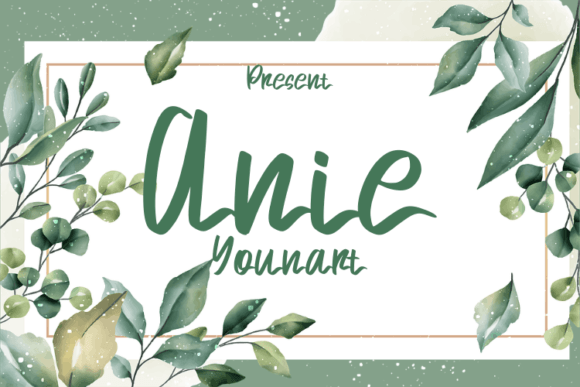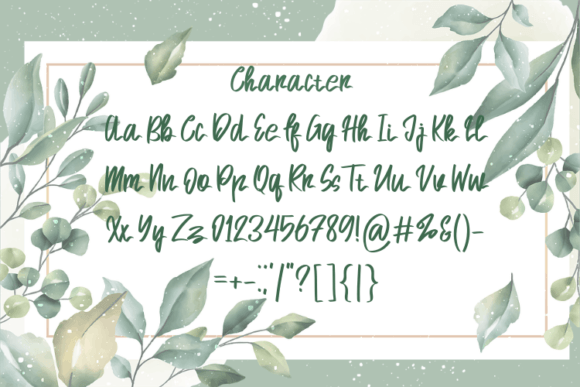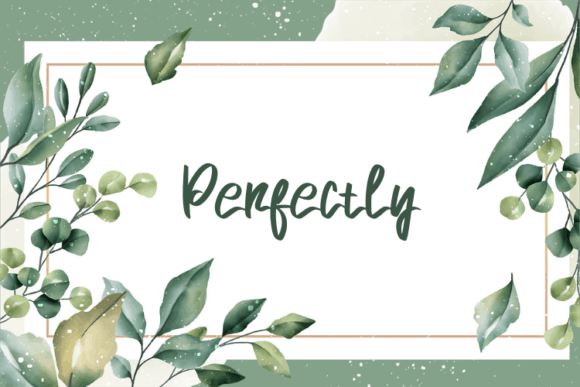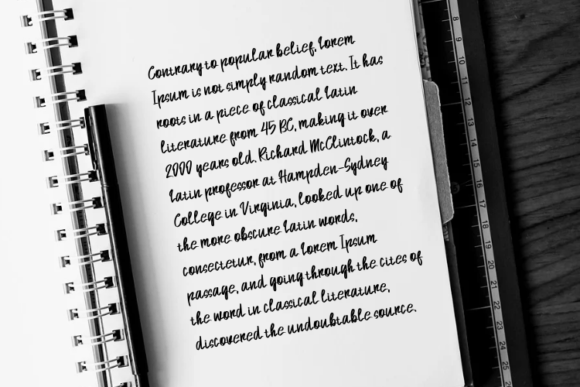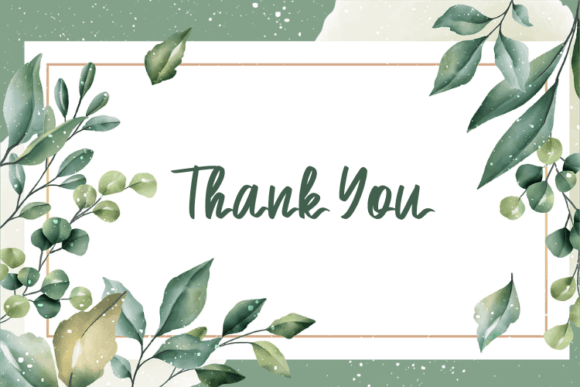
Anie Younart Font
About Anie Younart Font
The Anie Younart font is a modern and stylish script typeface designed to bring simplicity and elegance to your typography. With its refined strokes and contemporary flair, this font blends minimalism with luxury—making it ideal for creative professionals, high-end branding, and editorial projects.
Whether you’re crafting a fashion label, a film title, or a sophisticated quote layout, Anie Younart adds just the right amount of character and polish.
Sleek, Simple, and Stylish
Anie Younart’s structure is defined by clean lines and fluid curves. It mimics natural handwriting while maintaining precision and consistency across every character. The letter connections are smooth, making text look cohesive and visually pleasing.
Despite its simplicity, the font carries a luxurious tone. It’s feminine, sleek, and effortlessly modern. This makes the Anie Younart font especially suited for:
• Elegant logos and branding
• Movie or book title designs
• Fashion magazines and editorials
• Social media graphics and quote overlays
• Product packaging, especially in beauty and clothing sectors
Its versatility allows it to adapt to both formal and creative contexts with ease.
Perfect for High-End Creative Projects
Anie Younart is more than just a pretty font—it’s a functional design tool that enhances your brand’s personality. Its modern aesthetic is particularly appealing for fashion and lifestyle brands that want to communicate elegance and authenticity.
Pair it with minimalist layouts or clean sans-serif fonts to create striking contrasts. Whether used in headlines or short callouts, Anie Younart always manages to capture attention without being overwhelming.
Add Modern Elegance to Every Design
If you’re searching for a script font that feels upscale, graceful, and contemporary, the Anie Younart font is a fantastic option. It gives your designs an elevated look while staying clean and easy to read.